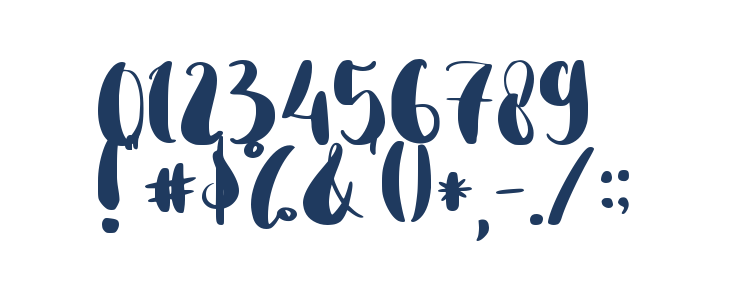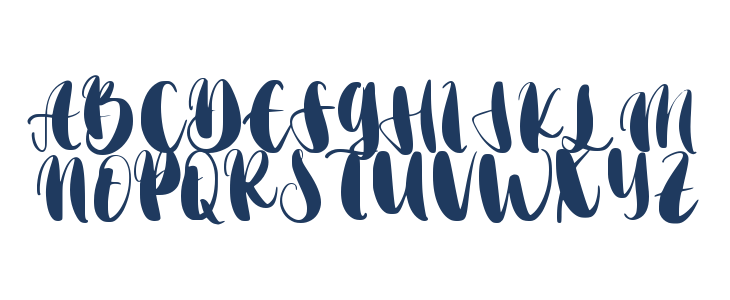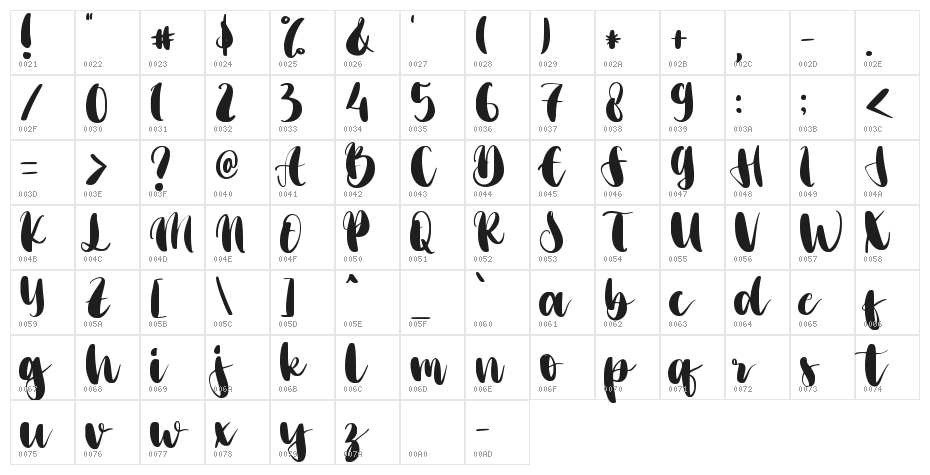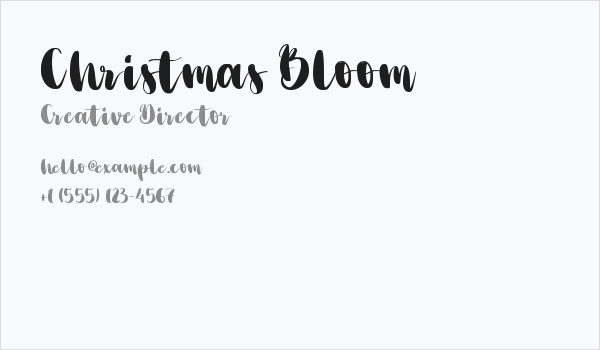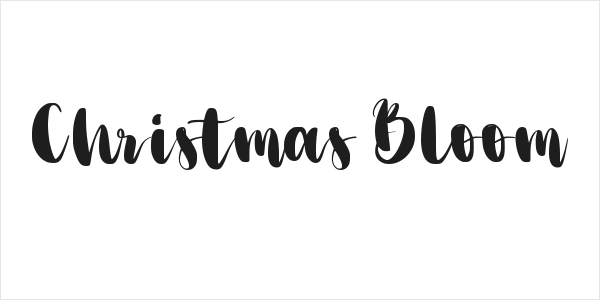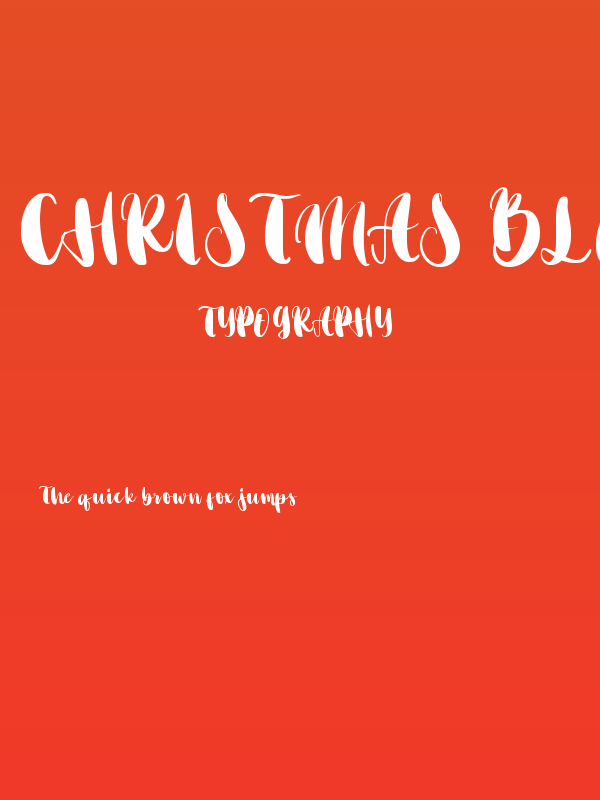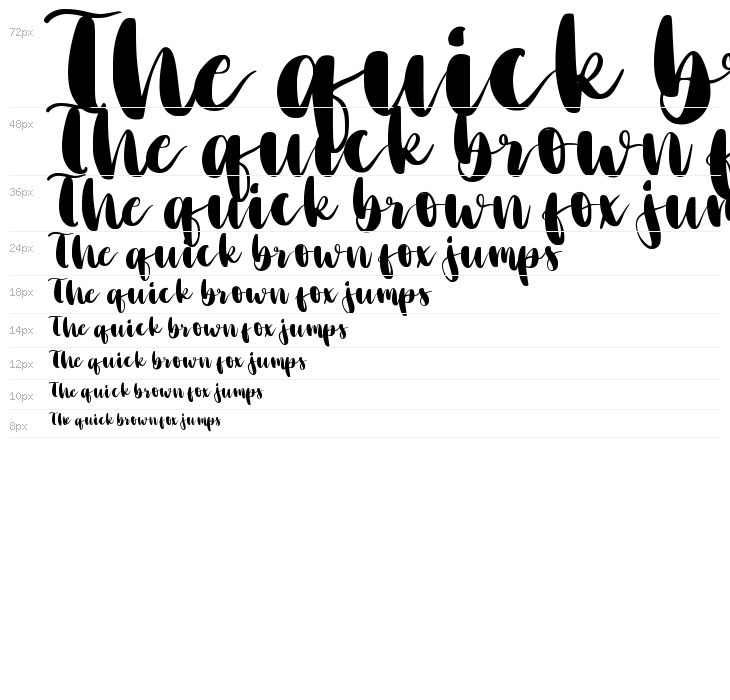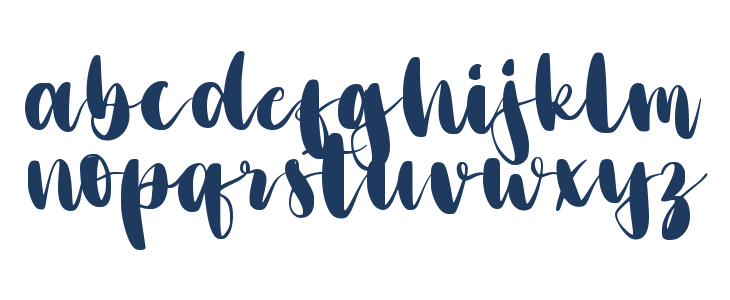
Christmas Bloom Font
Christmas Bloom Description
A bold, flowing script font with high contrast between thick and thin strokes, featuring playful, rounded letterforms and pronounced swashes. The characters are closely spaced, with a hand-lettered, brush-pen appearance, and the overall style is lively and decorative.
| Overall Style | Decorative, Festive, Handwritten |
| Use Case | Headlines, Logos, Invitations, Greeting cards |
| Proposed Projects | Holiday cards, invitations, branding, packaging, social media graphics, festive event posters. |